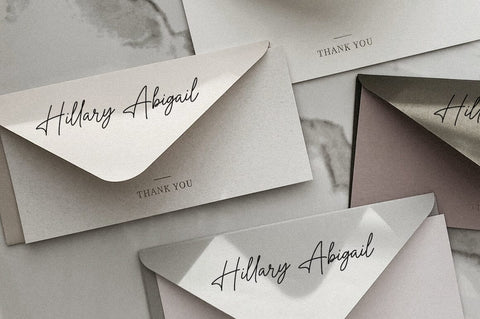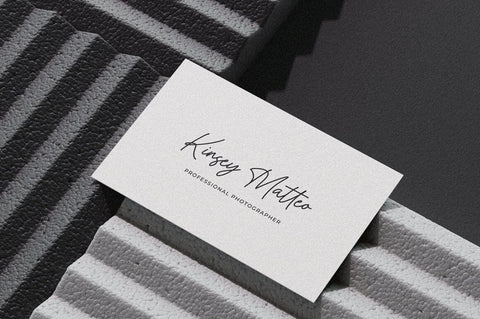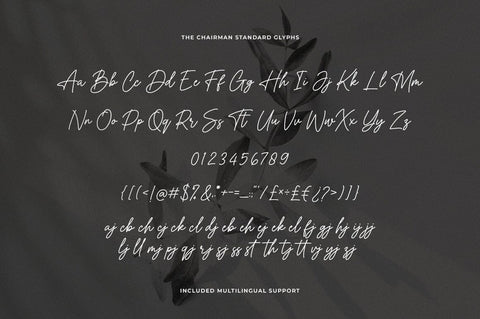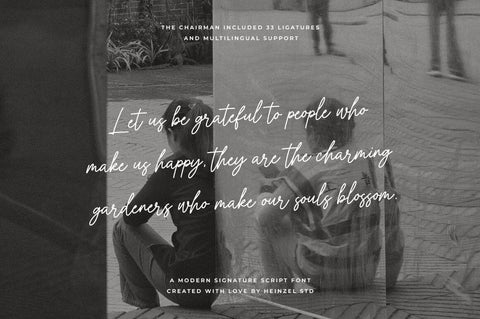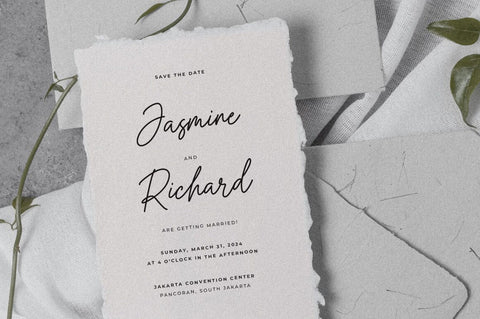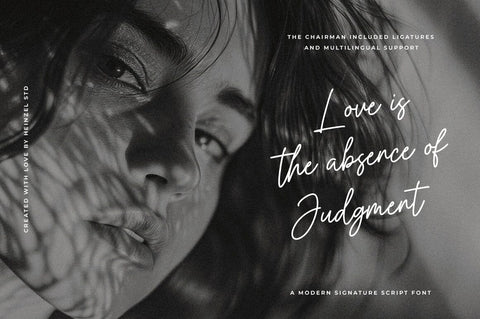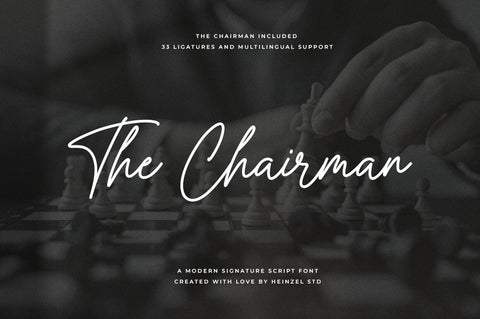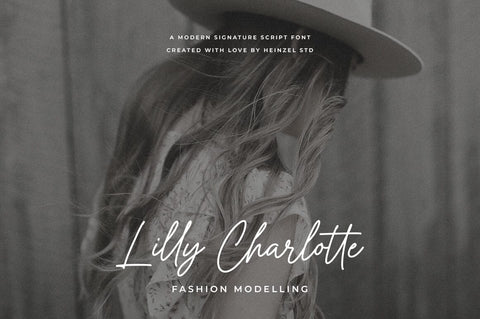
The Chairman Signature Font
The Chairman Signature Font is a sophisticated and luxurious typeface designed to exude an air of elegance and prestige. This carefully crafted font captures the essence of a distinguished chairman’s signature, making it perfect for high-end branding, upscale invitations, and exclusive events. With its timeless appeal, The Chairman Signature Font adds a touch of refinement to any project it graces.
The Chairman Features:
• Uppercase and Lowercase
• Numerical and Punctuation
• Ligatures
• Multilingual Language
This character set supports the following 21 languages: Afrikaans, Basque, Breton, Catalan, Danish, Dutch, English, Finnish, French, Gaelic (Irish, Scots), German, Icelandic, Indonesian, Irish, Italian, Norwegian, Portuguese, Saami (Southern), Spanish, Swahili, Swedish.